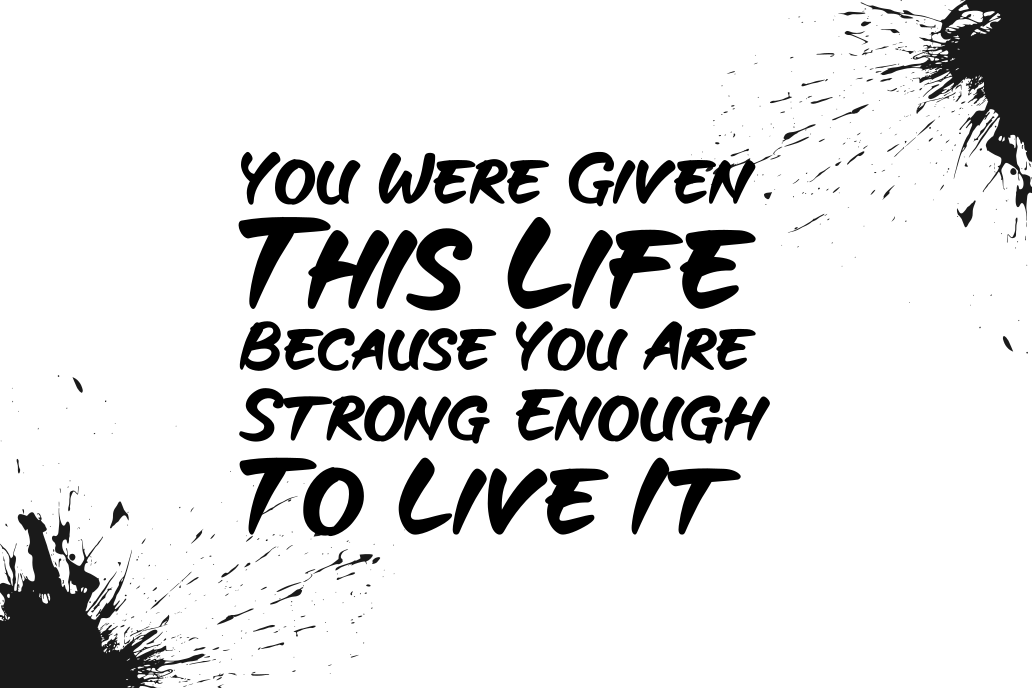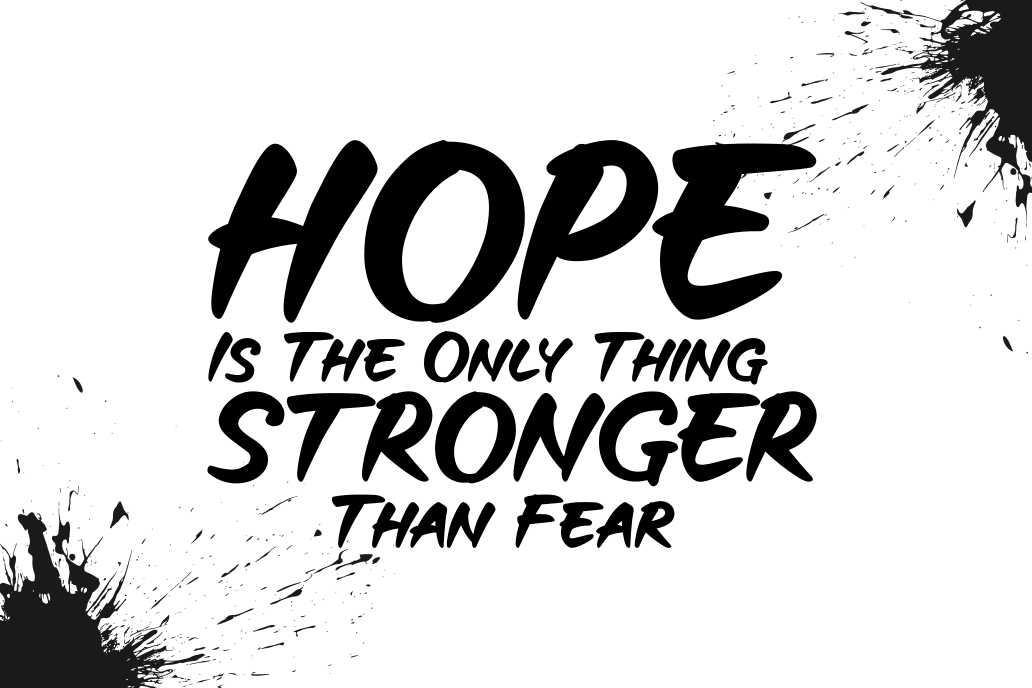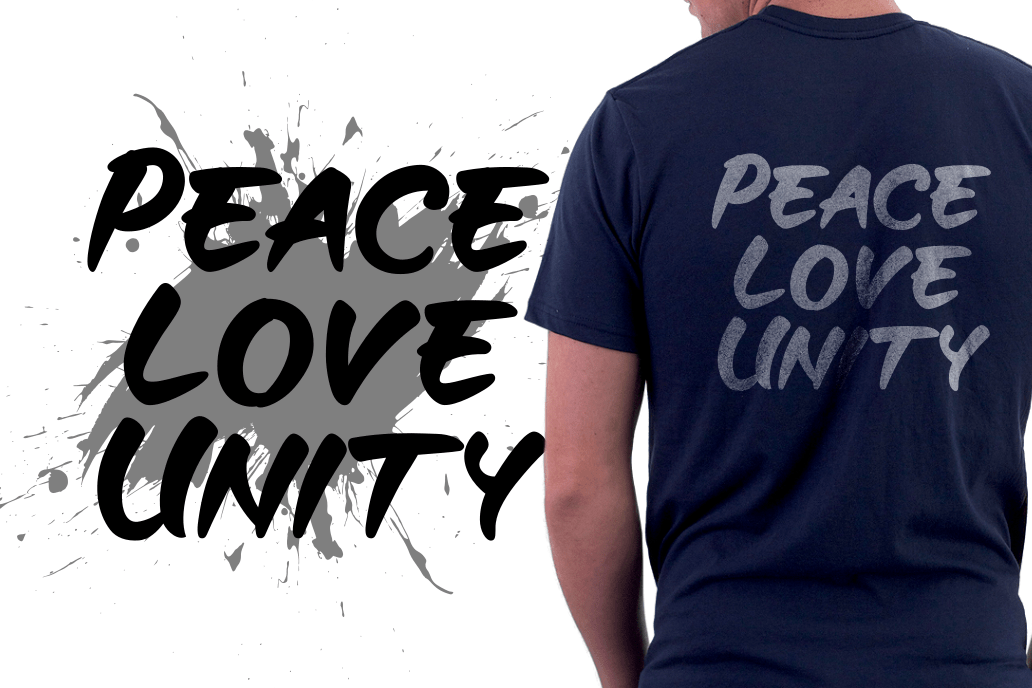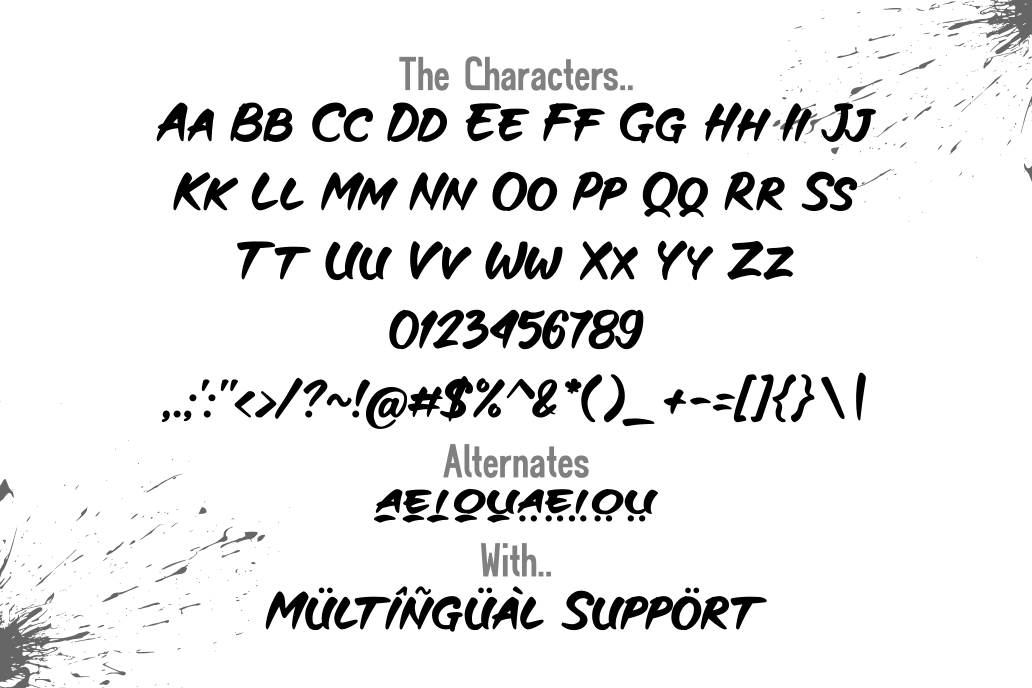
Aullya Gedabrush Font
Aullya Gedabrush Script Font
This is a display font based on brush strokes. The thick and solid strokes give a strong, and tough impression, besides that it also feels beautiful. Those who need a clear, strong, tough impression, should use this font for their design.